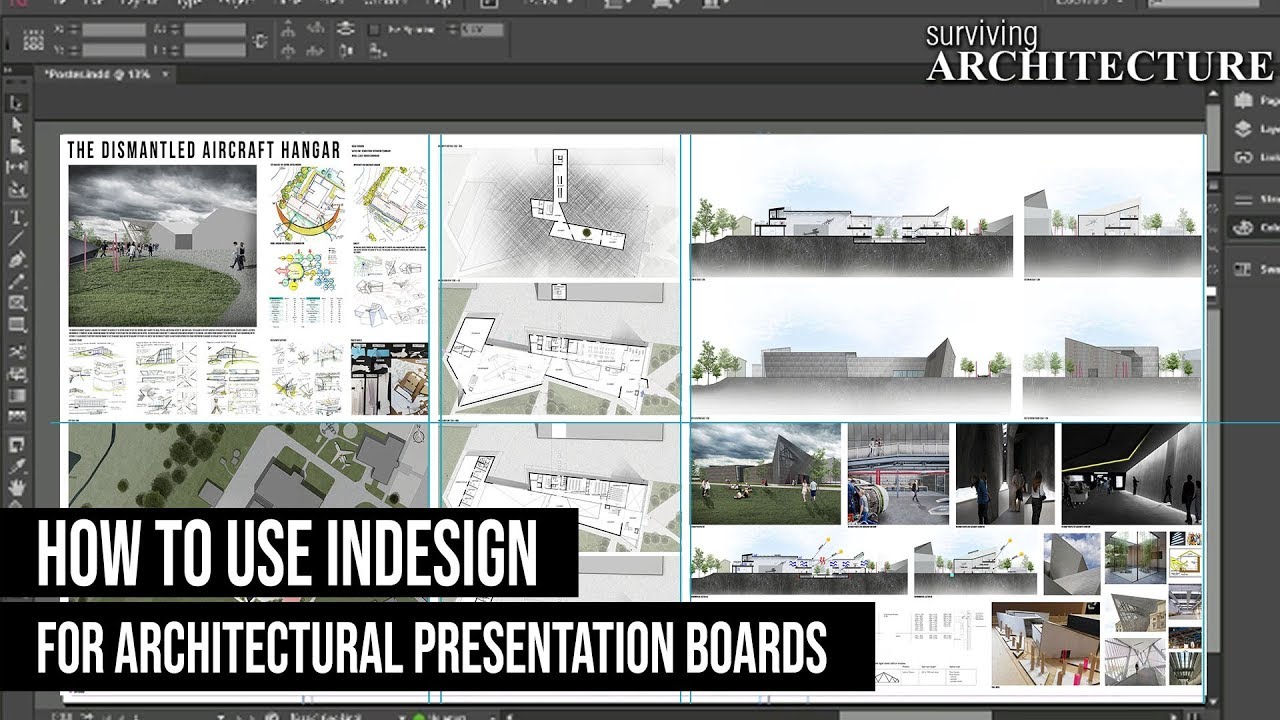
List Of Best Font For Architecture Board Simple Ideas, The below selection of 9 fonts are the fonts that we have had the most success with, and that we feel can be used in just about any architectural situation. Taking its name from a traditional italian recipe, it aims to be the added ingredient to make unique.
The bauhaus typeface design is based on the bauhaus aesthetic. Positive education activates constant elevation. The font can help lend a clean and corporate appearance to your portfolio layout. Taking its name from a traditional italian recipe, it aims to be the added ingredient to make unique.
Produced by the american type designer morris. Add a mask to the section layer, apply the gradient effect to the mask (adjust the distance and angle. Additionally, it can also be paired well with many other popular fonts. Cibreo is a geometric sans serif typeface, made to be extremely clear and readable while keeping a modernist, straight look.
This results in the type becoming more of a shape on the page and presentation board. The below selection of 9 fonts are the fonts that we have had the most success with, and that we feel can be used in just about any architectural situation. 10 font for architecture portfolio: A list and description of the most popular fonts for architecture. Design a professional architecture presentation board by Arqiviz Fiverr.
The below selection of 9 fonts are the fonts that we have had the most success with, and that we feel can be used in just about any architectural situation. Two fonts that caught my attention recently while searching for free fonts online, they are architect bold and graphite light, both are commercially available for download. Anything smaller is too hard to read. Alder come 4 different style, regular, italic, bold, & bold italic and all font come with uppercase, lowercase, numeral, punctuation, and support multi language. 10 Fonts For Architects ArchDaily.
In most cases, architects intuitively go for this modern sans serif typeface due to its straight and minimalistic appearance. Ching ($25.99) urban sketch (free) The bold lines render a sense of integrity to the architecture portfolio. Best viewed with one of these browser instead. 62158ebb25d55d0944a652cc6df81508.jpg (736×1040) งานนำเสนอสถาปัตย์, วอ.
Taking its name from a traditional italian recipe, it aims to be the added ingredient to make unique. But among the elements that make up the boards, panels and drawings, techniques and models, there is a particular fragment that helps them in composition and identity: Alder was inspired from the shape of buildings. Today’s video is the ultimate guide to architecture presentation boards which will cover fonts and text. Architecture Presentation Board Guide — Archisoup Architecture Guides.
Ching ($25.99) urban sketch (free) In most cases, architects intuitively go for this modern sans serif typeface due to its straight and minimalistic appearance. Here are 15 trending architectural fonts that architects need to install: The curve represent the limitless innovation in the architecture and typography world. ArchitectBold font download free (truetype) Download fonts.
Ching ($25.99) urban sketch (free) (see the following tables for more information on text size.) stick with traditional fonts like arial, times new roman , or similar typefaces. Sooez art portfolios 11×17, large…. But among the elements that make up the boards, panels and drawings, techniques and models, there is a particular fragment that helps them in composition and identity: Architecture Presentation Board Tips The Inovative Architects.
Kenneth cole reaction faux croco…. Gotham | fonts for architects. Anything smaller is too hard to read. Cossini black superior vegan leather…. Drafting Font.
Gotham | fonts for architects. Produced by the american type designer morris. Use italics or bold for emphasis, not for all your text. The curve represent the limitless innovation in the architecture and typography world. Best Font size to use in Architecture Boards in 2021 Architecture.
Additionally, it can also be paired well with many other popular fonts. Anyone who clicks on my link will get two free month. A white background will make your images and text stand out and look professional. As we mentioned earlier, helvetica is one of the most popular architectural fonts. 10 Fonts For Architects ArchDaily.
Alder was inspired from the shape of buildings. Try to keep your background plain, unless it is featuring one of your key images. Best viewed with one of these browser instead. Kenneth cole reaction faux croco…. Architectural Presentation Board.
Architecture Presentation Board Backgrounds Can Get A Little Busy And Make It Difficult To See The Key Details Of The Board.
Nicpro large size art portfolio…. The bauhaus typeface design is based on the bauhaus aesthetic. The bold lines render a sense of integrity to the architecture portfolio. The curve represent the limitless innovation in the architecture and typography world.